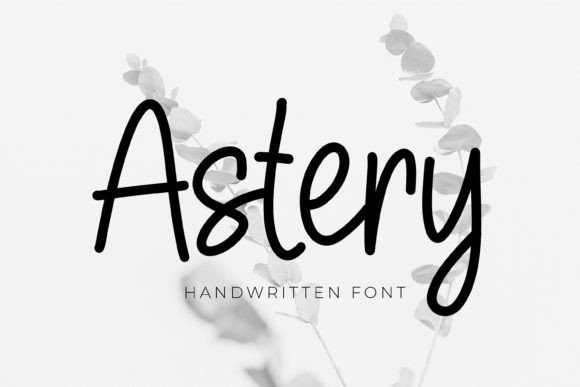
Have you ever been working on a project, pouring your heart and soul into it, when suddenly you’re stuck on one thing: the font? You’re not alone! I recall a particularly frustrating experience while designing a wedding invitation for a client. I had the perfect design concept, but the font just wasn’t right. It was either too formal, too playful, or just plain boring. That’s when I discovered **Astery Font**, a beautifully crafted handwritten signature and script font that changed the game.
Introducing Astery Font
**Astery Font** is a stunning addition to any design project, offering an elegant and personal touch that’s hard to resist. Whether you’re creating logos, wedding invitations, or branding materials, Astery’s fluid strokes and graceful curves deliver a sophisticated look that stands out from the crowd. With its unique blend of classic and modern elements, Astery is sure to become your go-to font for projects that demand a touch of refinement.
- 💫 Elegant and sophisticated design that’s perfect for high-end projects
- ✅ Extensive character set, including OpenType features and stylistic alternates
- 🎨 Highly versatile, suitable for a wide range of design applications
- 👍 Excellent for creating custom signatures, logos, and branding materials
While Astery Font is an exceptional font, there are a few minor quirks to be aware of:
- 🤔 Some users may find the font a bit too ornate for very casual or playful projects
- ⚠️ Limited availability of certain characters, such as ligatures or special glyphs
The Story Behind Astery Font
According to the designer, Astery Font was inspired by the flowing lines and curves of traditional calligraphy. With a passion for elegant, sophisticated design, the creator aimed to craft a font that would bring a touch of refinement to any project. Through careful attention to detail and a deep understanding of typography, Astery Font was born – a true masterpiece of modern calligraphy.
Q: What type of projects is Astery Font best suited for?
A: Astery Font is perfect for projects that require an elegant, sophisticated touch, such as wedding invitations, logos, branding materials, and high-end advertising.
Q: Does Astery Font come with OpenType features?
A: Yes, Astery Font includes OpenType features, such as stylistic alternates, ligatures, and glyphs, which can be accessed through compatible design software.